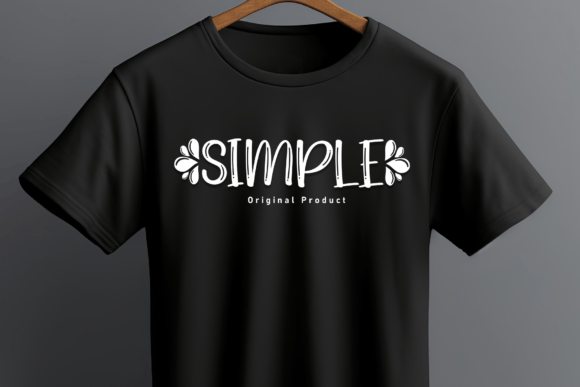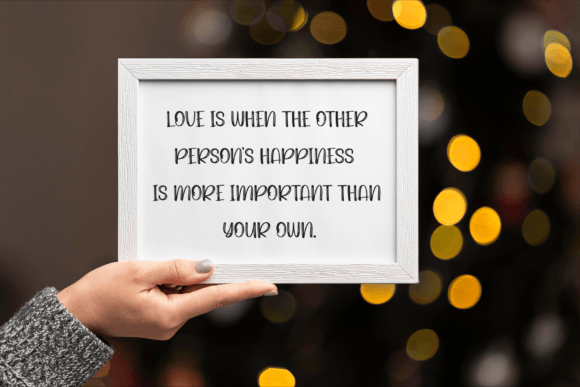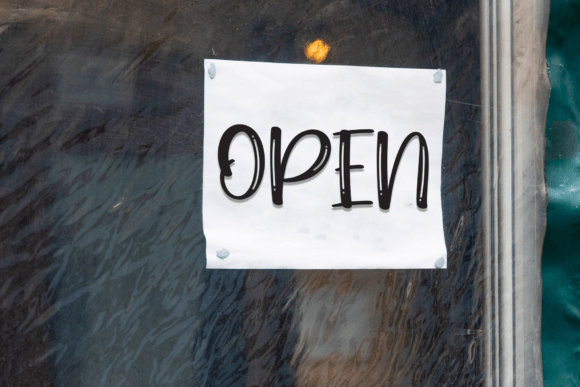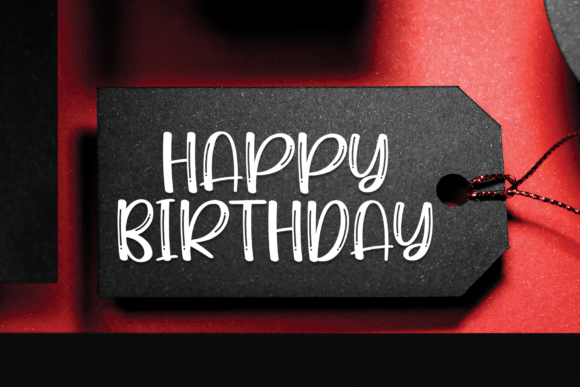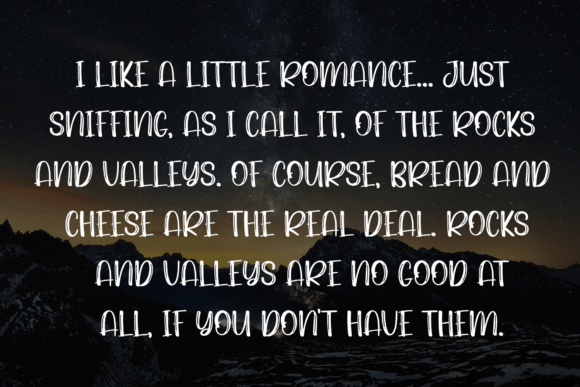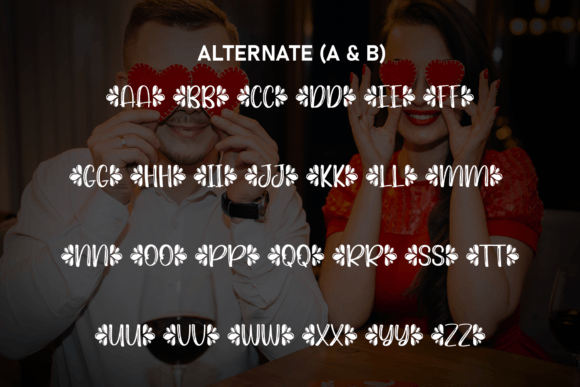
Charming Valentines Font: Add a Touch of Whimsy to Your Designs
Are you looking for a font that can add a dash of fun and personality to your creative projects? Look no further than the Charming Valentines Font, a sublimely charming handwritten display font that’s perfect for making your designs stand out. With its adorable charm and playful temperament, this font is ideal for composing captivating wedding invitations, enchanting cards, or any artistic endeavor that craves a touch of whimsy.
A Font with Personality
The Charming Valentines Font is more than just a collection of letters – it’s a font with personality. It offers a delightful blend of sweetness and style that’s sure to capture the hearts of designers and crafters alike. Whether you’re creating a romantic wedding invitation or a playful greeting card, this font is sure to add a touch of magic to your design.
The Charming Valentines Font is perfect for a wide range of creative projects, including:
- Wedding invitations and announcements
- Artistic endeavors, such as illustrations and paintings
- Digital designs, such as social media graphics and blog headers
- Crafting projects, such as scrapbooking and DIY crafts
What Sets Charming Valentines Font Apart
So, what sets the Charming Valentines Font apart from other fonts? Here are just a few things that make it special:
- Handwritten with love: This font is handwritten with love and care, giving it a personal and unique touch.
- Playful and whimsical: The Charming Valentines Font has a playful and whimsical feel that’s perfect for adding a touch of fun to your designs.
- Delightful blend of sweetness and style: This font offers a delightful blend of sweetness and style that’s sure to capture the hearts of designers and crafters alike.
In conclusion, the Charming Valentines Font is a sublimely charming handwritten display font that’s perfect for adding a touch of whimsy to your creative projects. With its adorable charm and playful temperament, this font is ideal for composing captivating wedding invitations, enchanting cards, or any artistic endeavor that craves a dash of fun. So why not give it a try and see how it can add a touch of magic to your designs?
Whether you’re a designer, crafter, or DIY enthusiast, the Charming Valentines Font is sure to become a favorite in your collection. So go ahead, get creative, and let this charming font bring a touch of whimsy and fun to your designs!